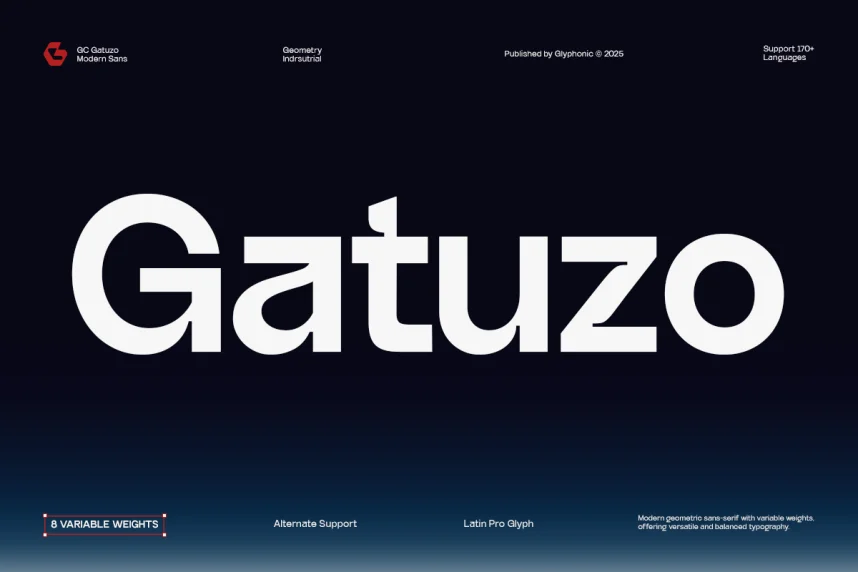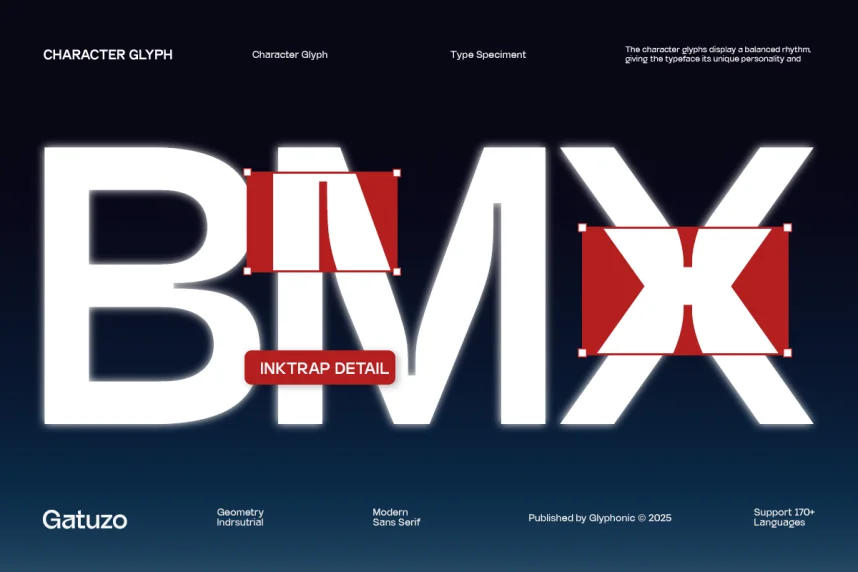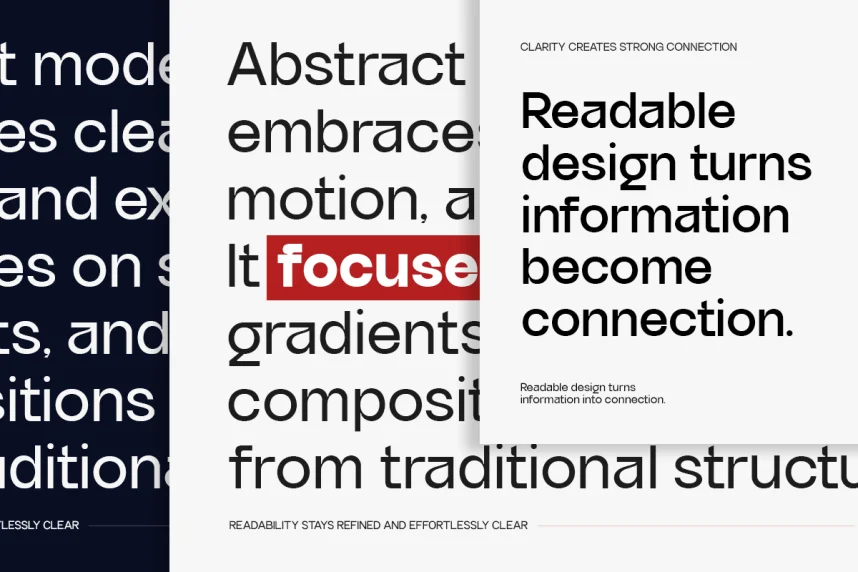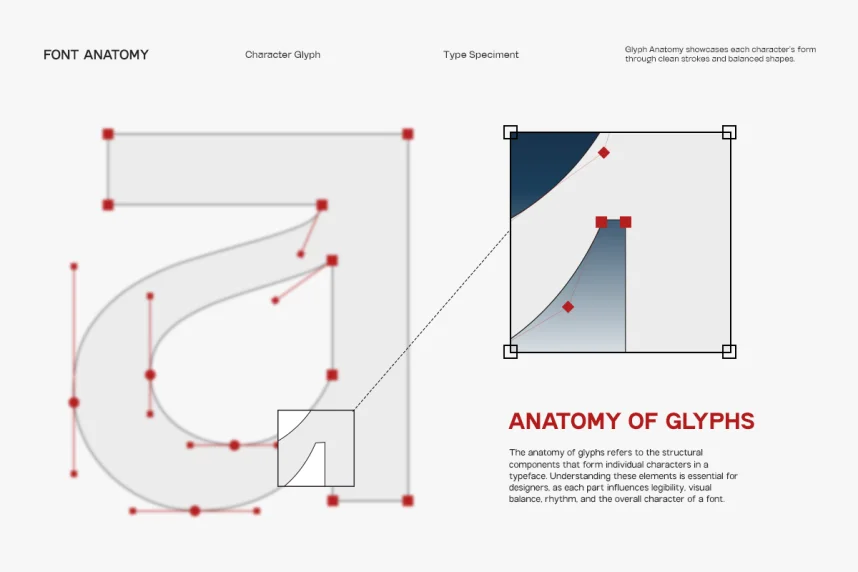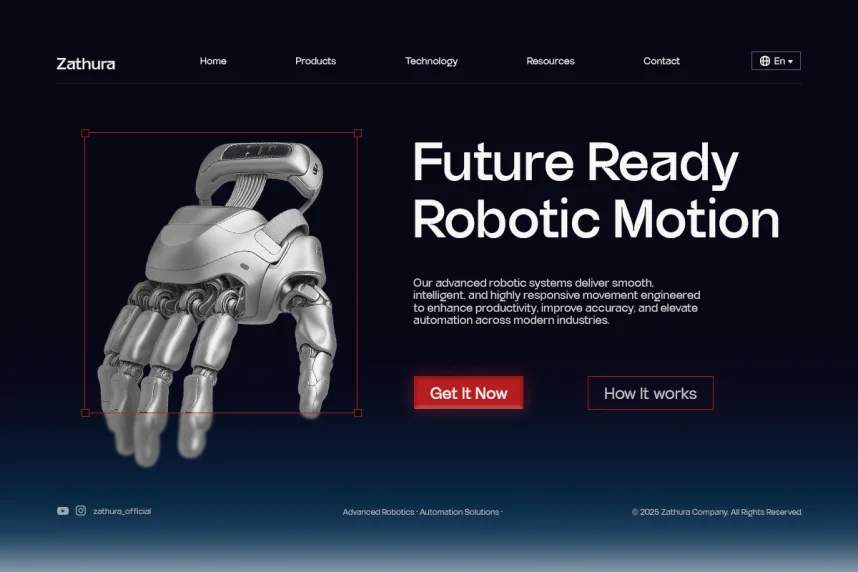
GC Gatuzo Font Family is a serif type system created to support readability and structure in editorial design, branding, and printed materials. Designers often rely on serif families like this when working on books, stationery, and logos that require stable, professional typography.
GC Gatuzo features defined serifs, moderate stroke contrast, and well-balanced proportions. The letterforms maintain clarity at both small and large sizes, making the family useful for body text and headings. Multiple weights help establish hierarchy while keeping a consistent visual tone. The font typically includes uppercase and lowercase letters, numerals, punctuation, and extended characters for broader language support.